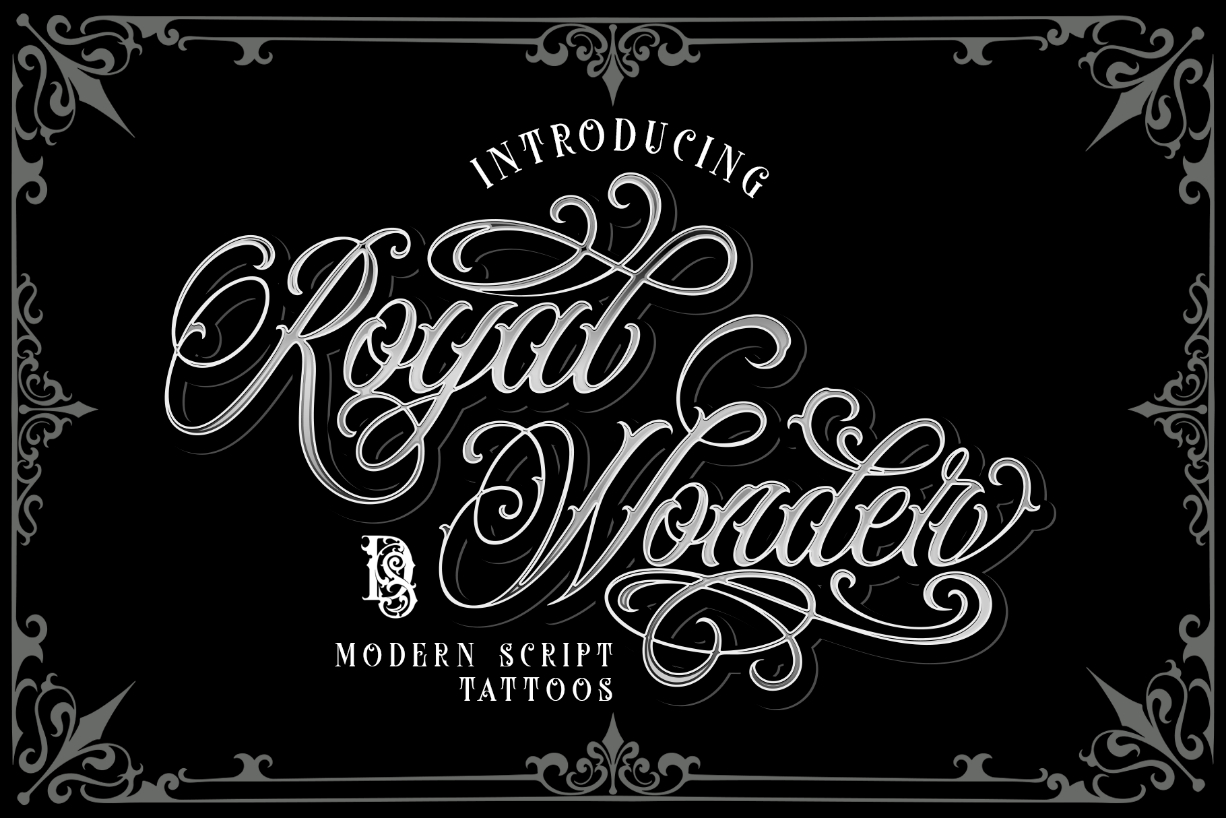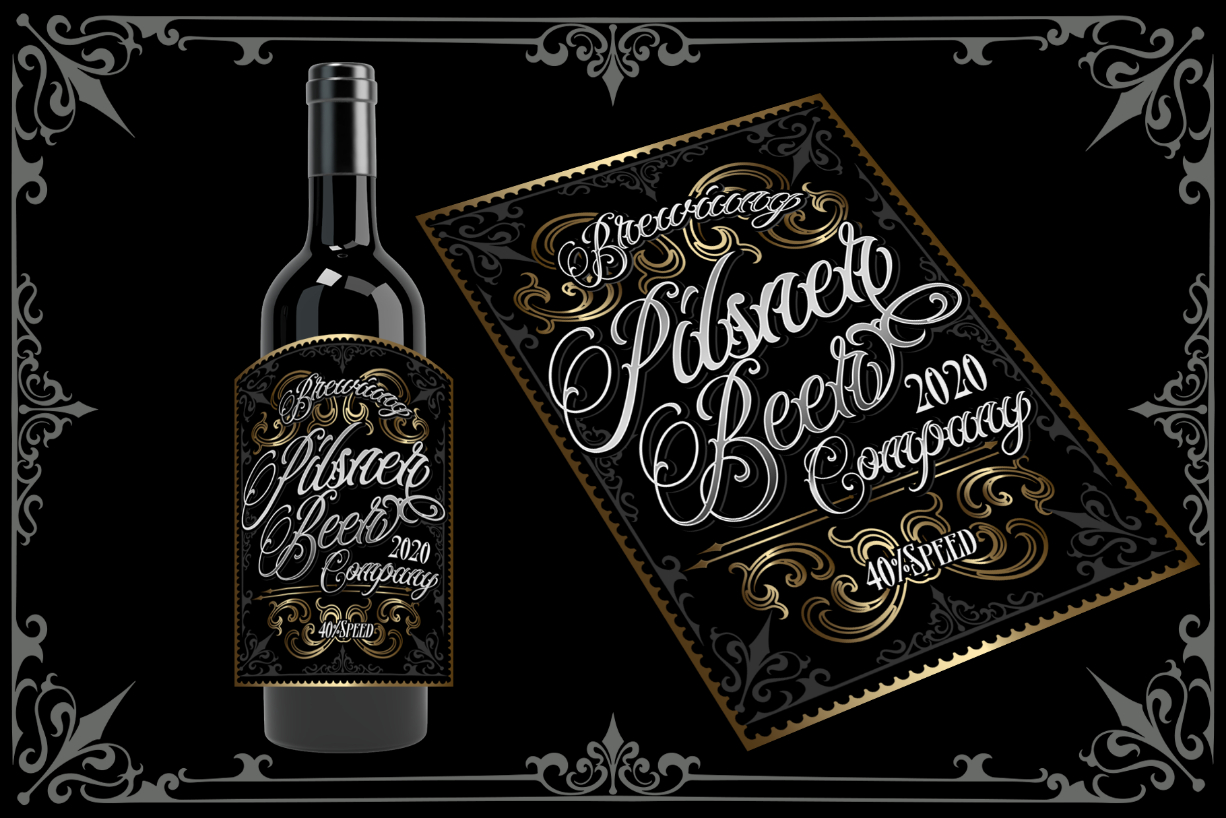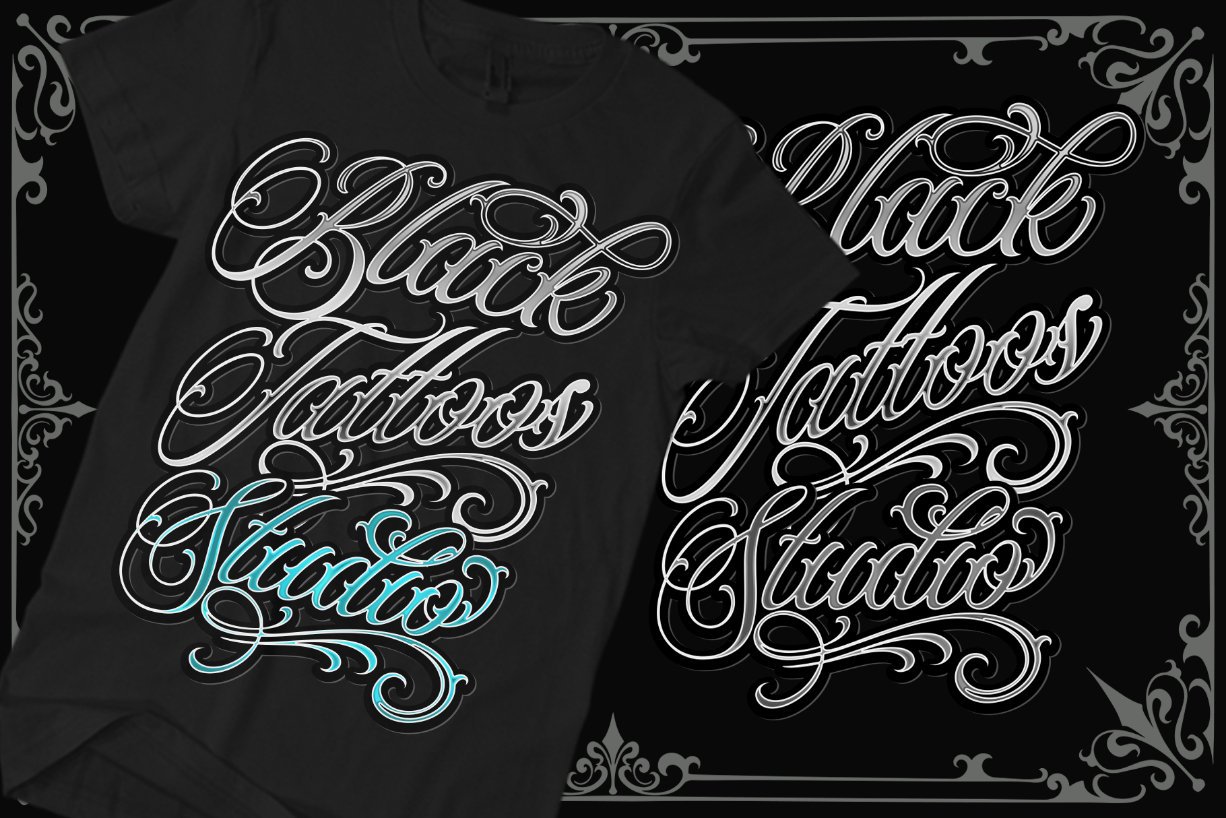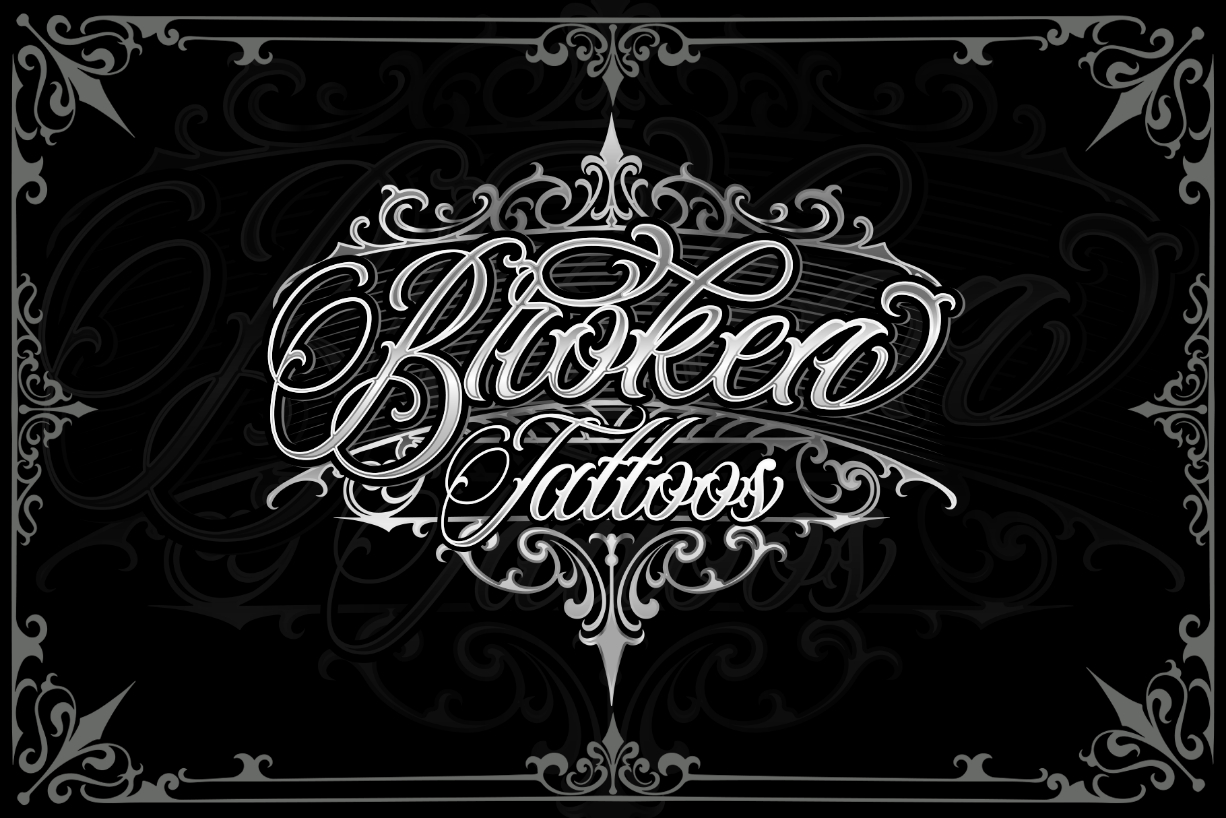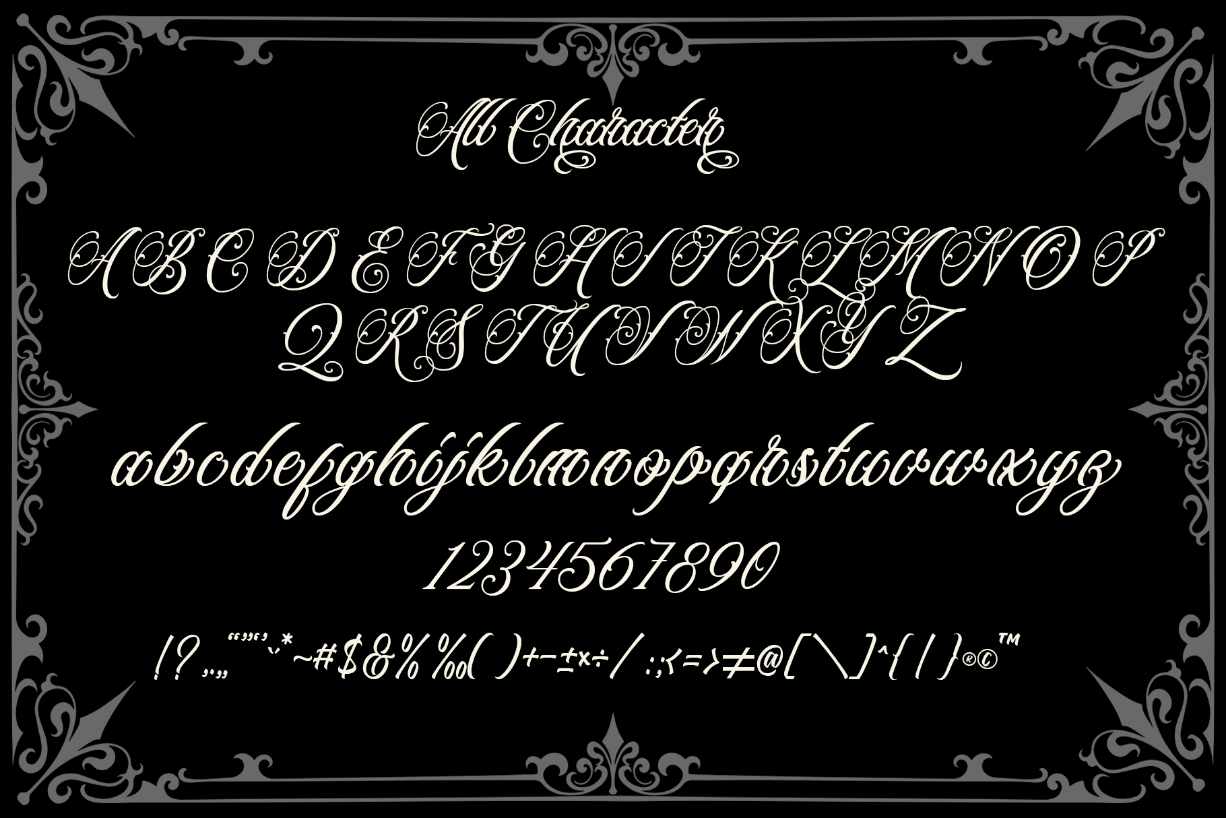
About Royal Wonder Font
Royal Wonder is a beautiful and distinct looking blackletter font. Featuring a vintage style, this font will instantly take your designs to distinct realms. Fall in love with its incredibly versatile style and use it to create spectacular designs!